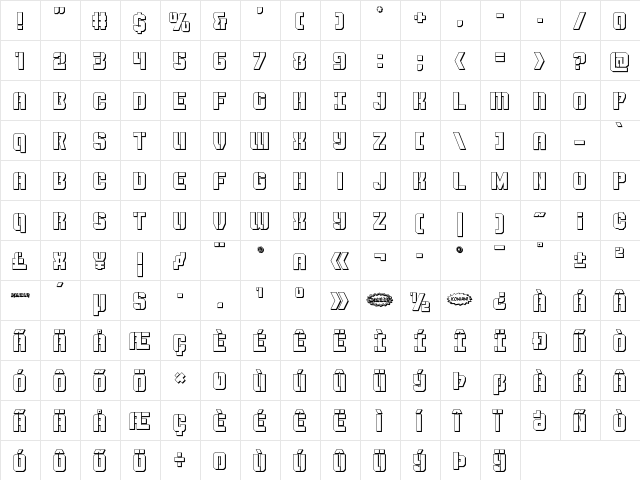
Thunder Trooper 3D Regular
Design Context for Thunder Trooper 3D Typeface
Thunder Trooper 3D is a composed and adaptable typeface that performs quietly and consistently across a wide range of design contexts.